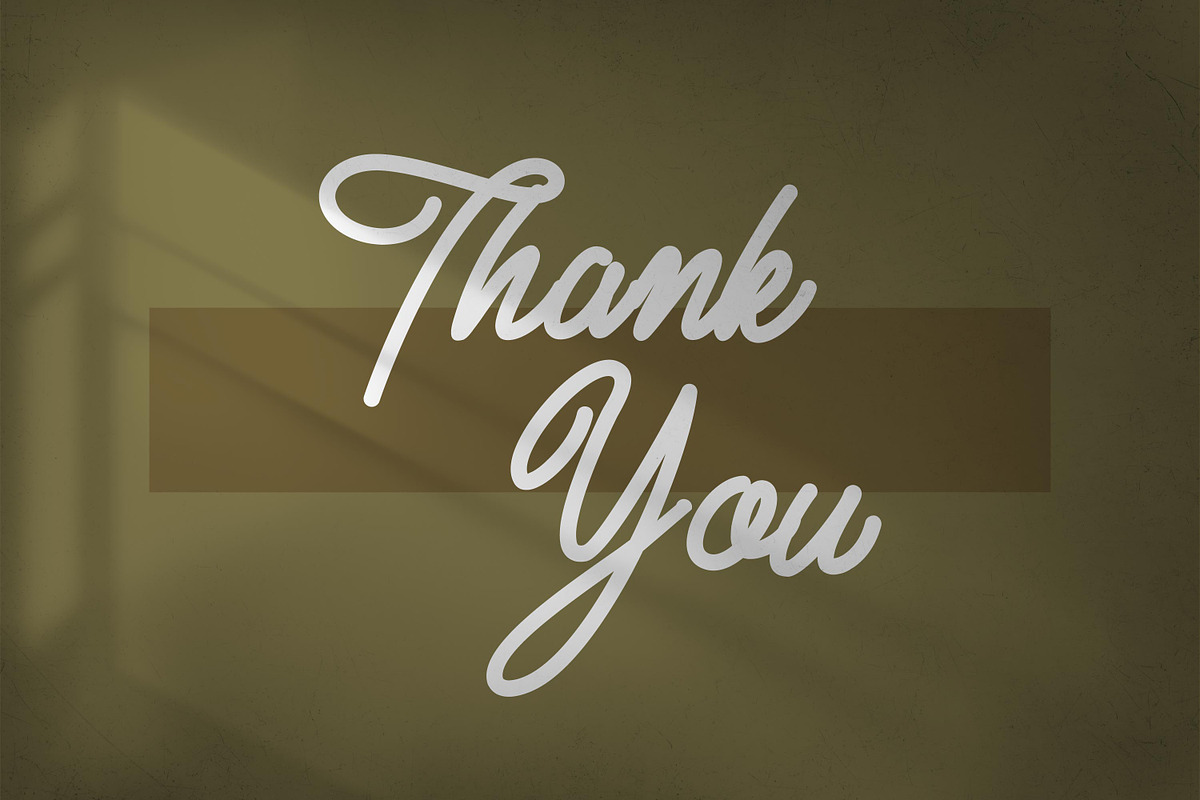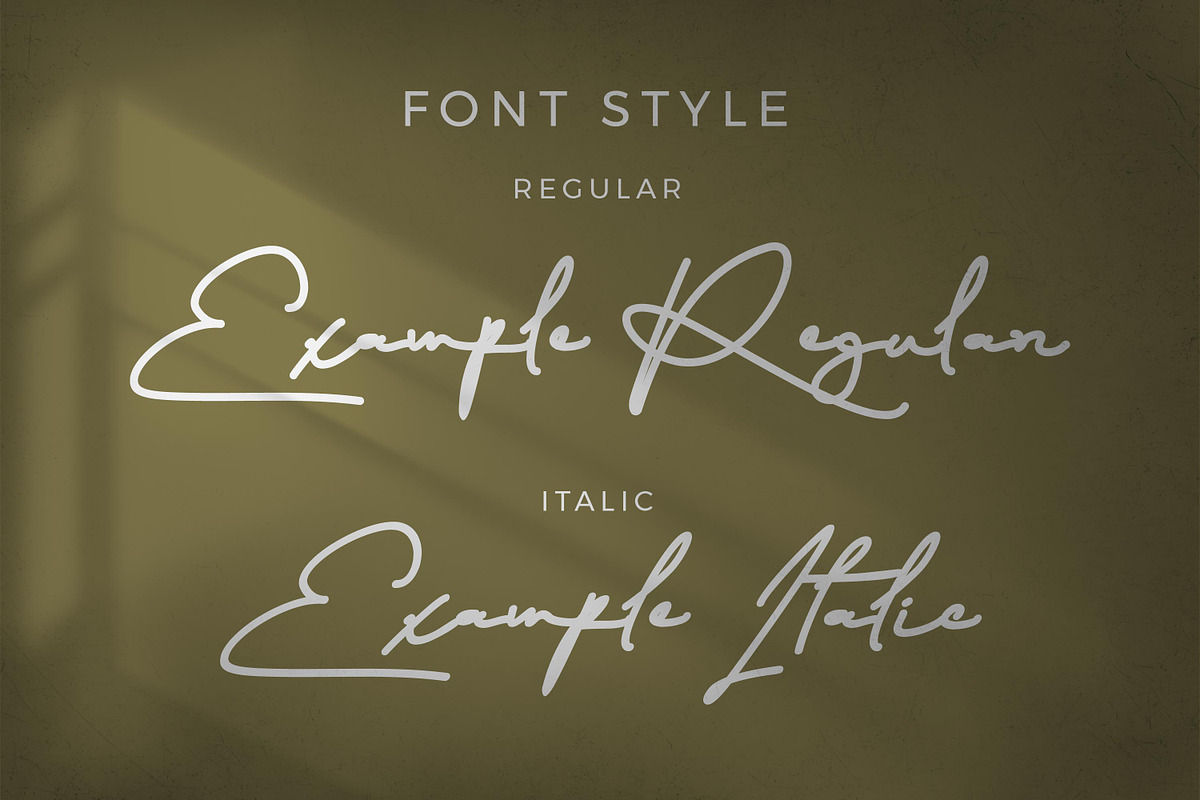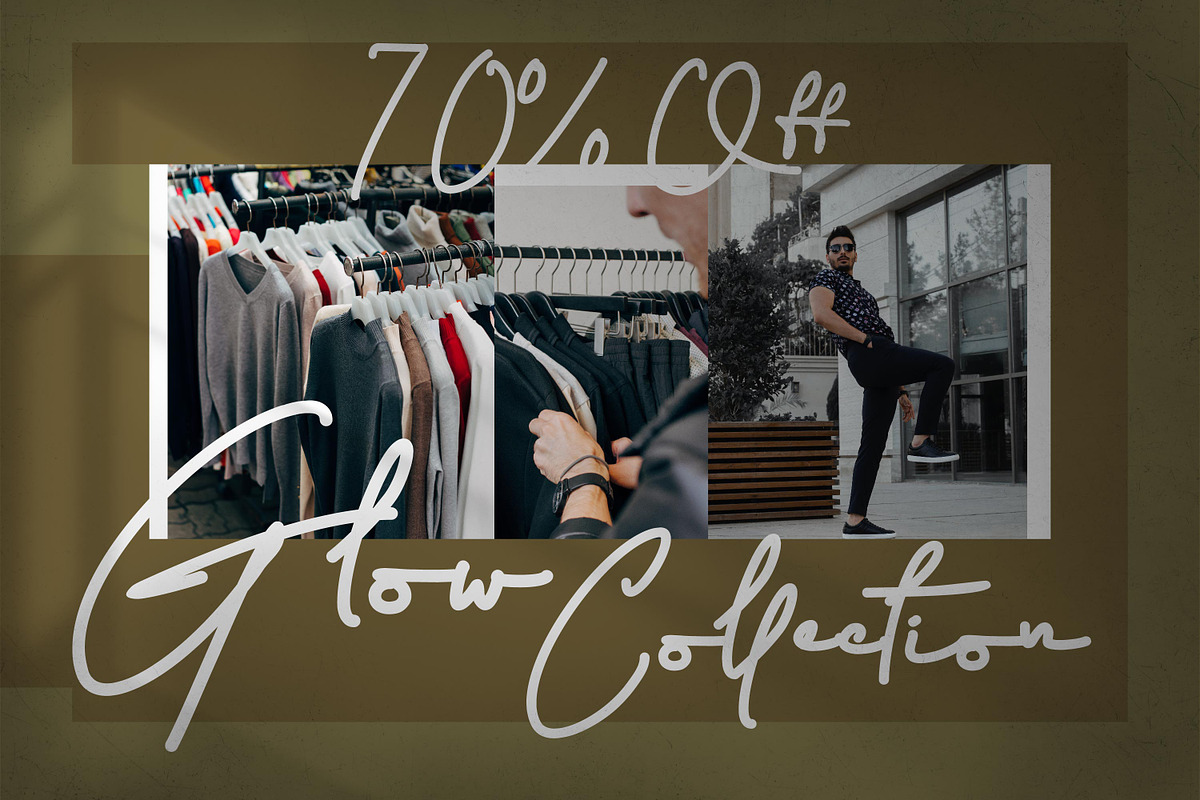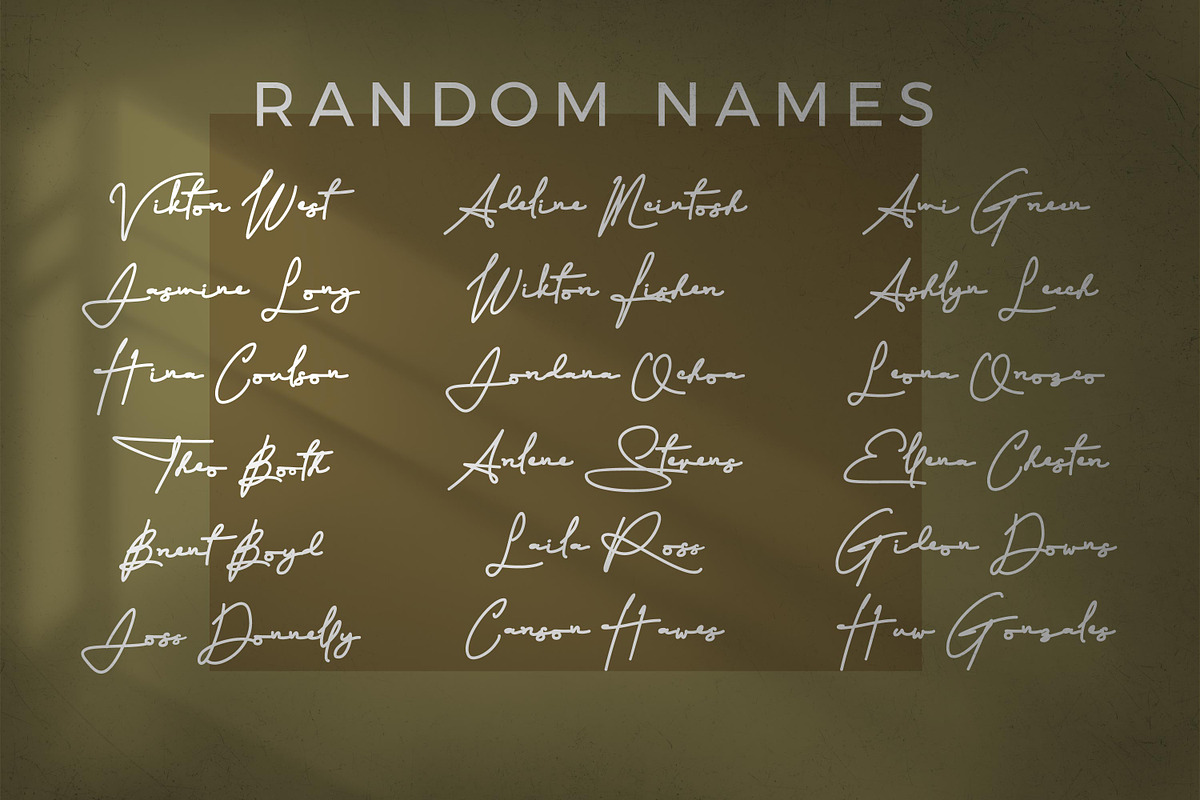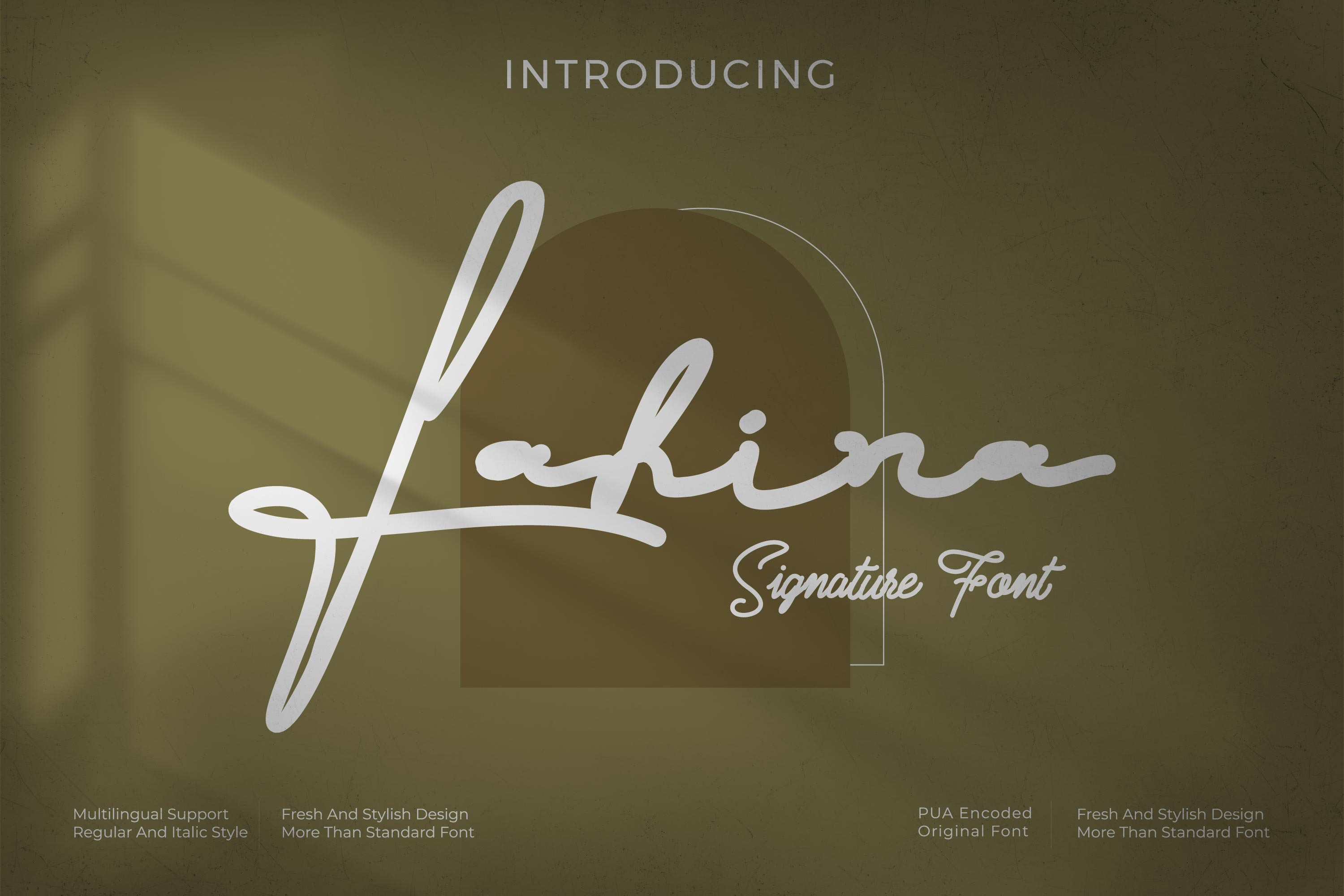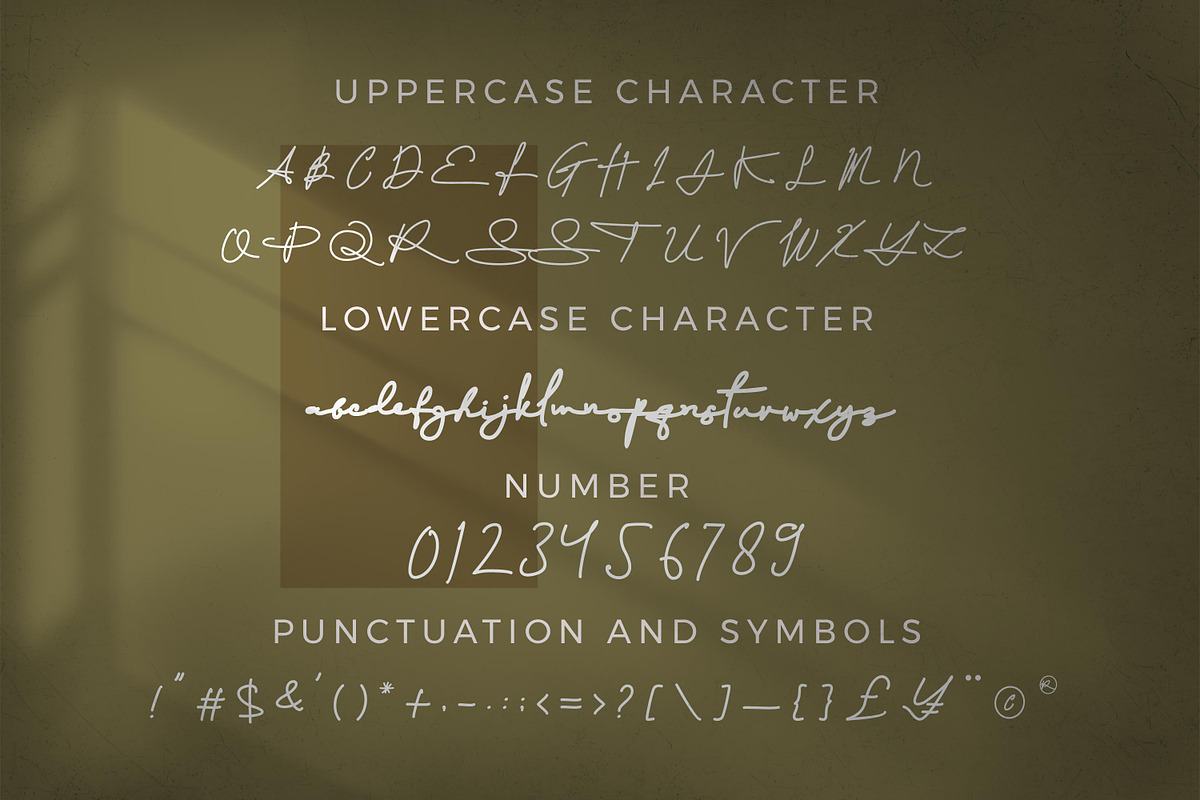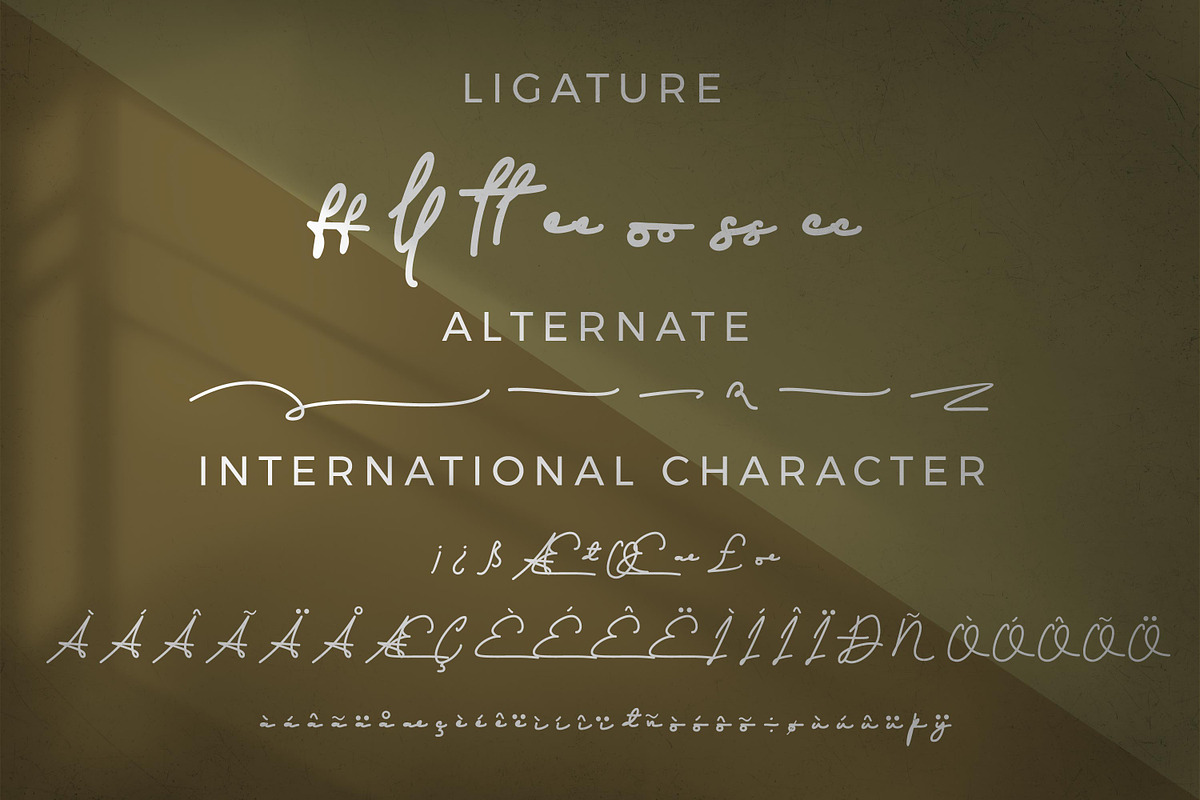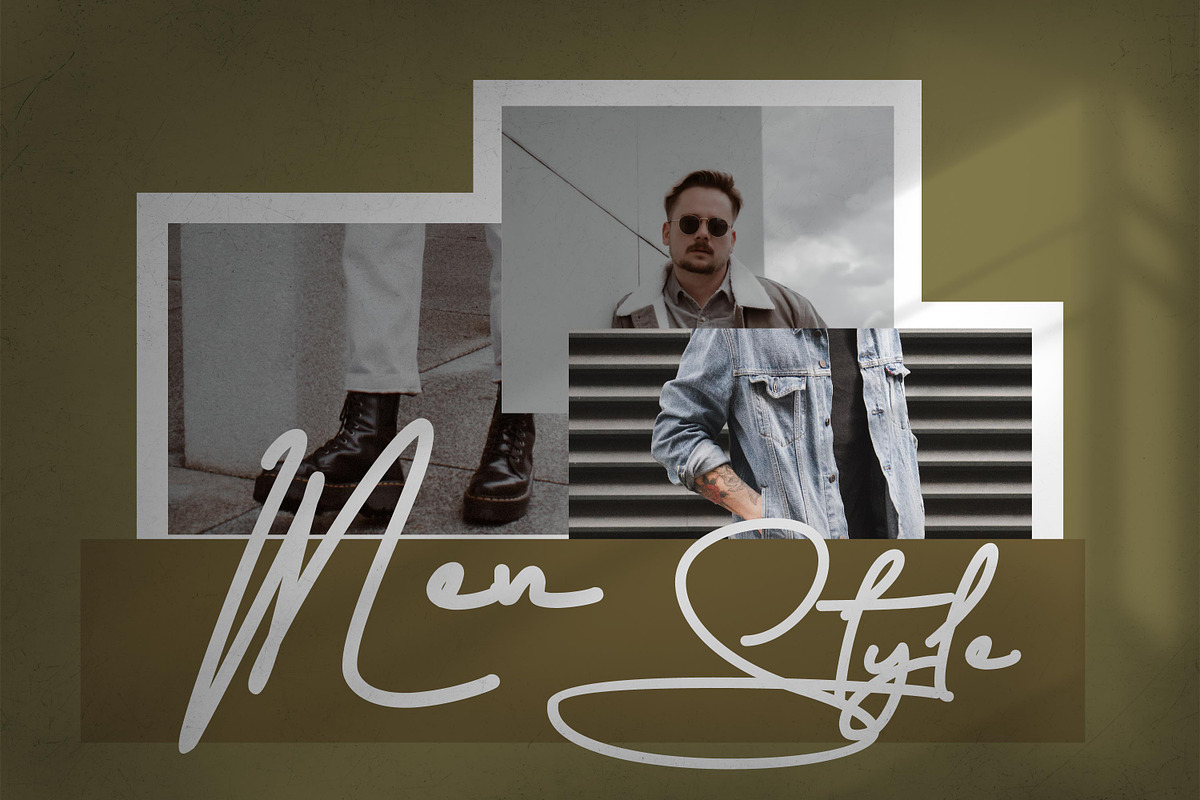
Fahira Signature style font
Fahira - Signature style font, suitable for any projects such as: logos, branding projects, homeware designs, product packaging, mugs, quotes, posters, shopping bags, t-shirts, book covers, name card, invitation cards, greeting cards, label, photography, watermark, special events, and all your other luxury projects that need a premium signature taste.